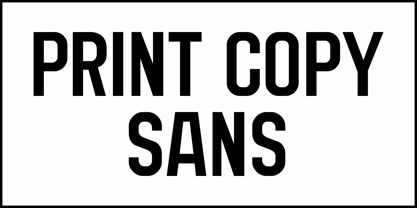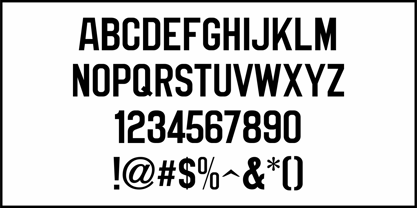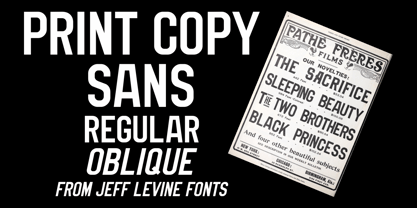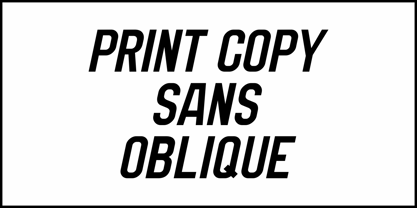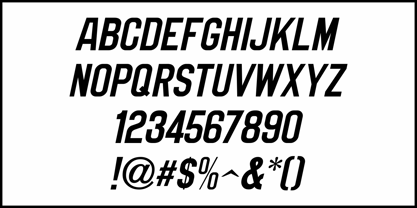
Print Copy Sans JNL
by Jeff Levine
Various Pathe film ads found within the pages of the 1908 edition of Views and Film Index were set in a sans serif metal type face popular around the turn of the last century.
This is now available digitally as Print Copy Sans JNL in both regular and oblique versions.
Designers: Jeff Levine
Foundry: Jeff Levine